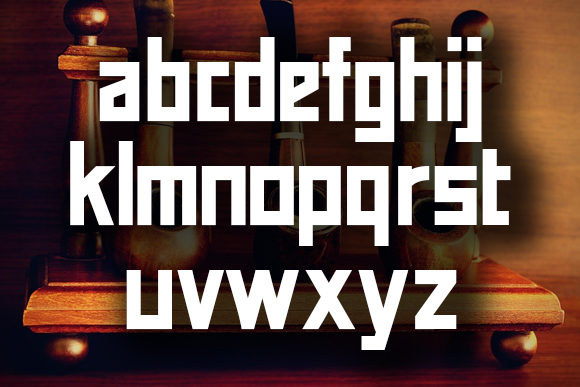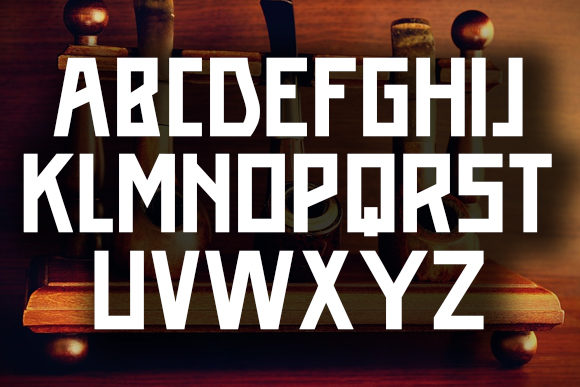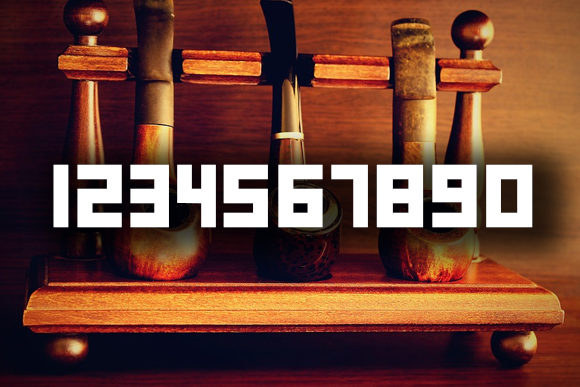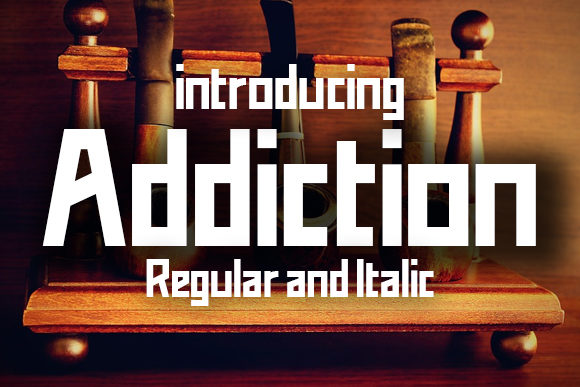
Addiction Font: Elevate Your Designs with a Bold and Elegant Typeface
Are you tired of using the same old fonts in your designs? Look no further than Addiction Font, a stunning bold-styled display font that’s sure to take your creations to the next level. With its sharp, elegant lines, this typeface is perfect for a wide range of design applications, from crafting and digital designing to presentations and greeting cards making.
What Makes Addiction Font So Special?
Addiction Font is an awesome bold-styled display font that’s designed to make a statement. Its sharp, elegant lines make it perfect for creating eye-catching headlines, titles, and captions that will grab the attention of your audience. Whether you’re designing a logo, brochure, or social media post, this font is sure to make your design stand out from the crowd.
One of the key features of Addiction Font is its versatility. It’s a highly adaptable typeface that can be used in a wide range of design applications, from digital designing and crafting to presentations and greeting cards making. Whether you’re a professional designer or a DIY crafter, this font is perfect for anyone looking to add a touch of elegance and sophistication to their designs.
Key Features of Addiction Font
- Bold and Elegant Design: Addiction Font features a sharp, elegant design that’s perfect for creating eye-catching headlines and titles.
- Versatile: This font is highly adaptable and can be used in a wide range of design applications, from digital designing and crafting to presentations and greeting cards making.
- Easy to Read: Despite its bold design, Addiction Font is easy to read, making it perfect for use in body text as well as headlines.
- High-Quality: This font is designed to high-quality standards, ensuring that it looks great in any design application.
How to Use Addiction Font in Your Designs
- Pair it with Other Fonts: Addiction Font looks great when paired with other fonts. Try pairing it with a sans-serif font for a modern look or a serif font for a more traditional look.
- Use it for Headlines: This font is perfect for creating eye-catching headlines that will grab the attention of your audience.
- Experiment with Colors: Addiction Font looks great in a wide range of colors. Experiment with different colors to find the one that works best for your design.
Why Designers and Crafters Love Addiction Font
Addiction Font has become a favorite among designers and crafters for a number of reasons. Here are a few:
- Unique Design: This font features a unique design that’s sure to make your designs stand out from the crowd.
- Elegant and Sophisticated: Addiction Font adds a touch of elegance and sophistication to any design.